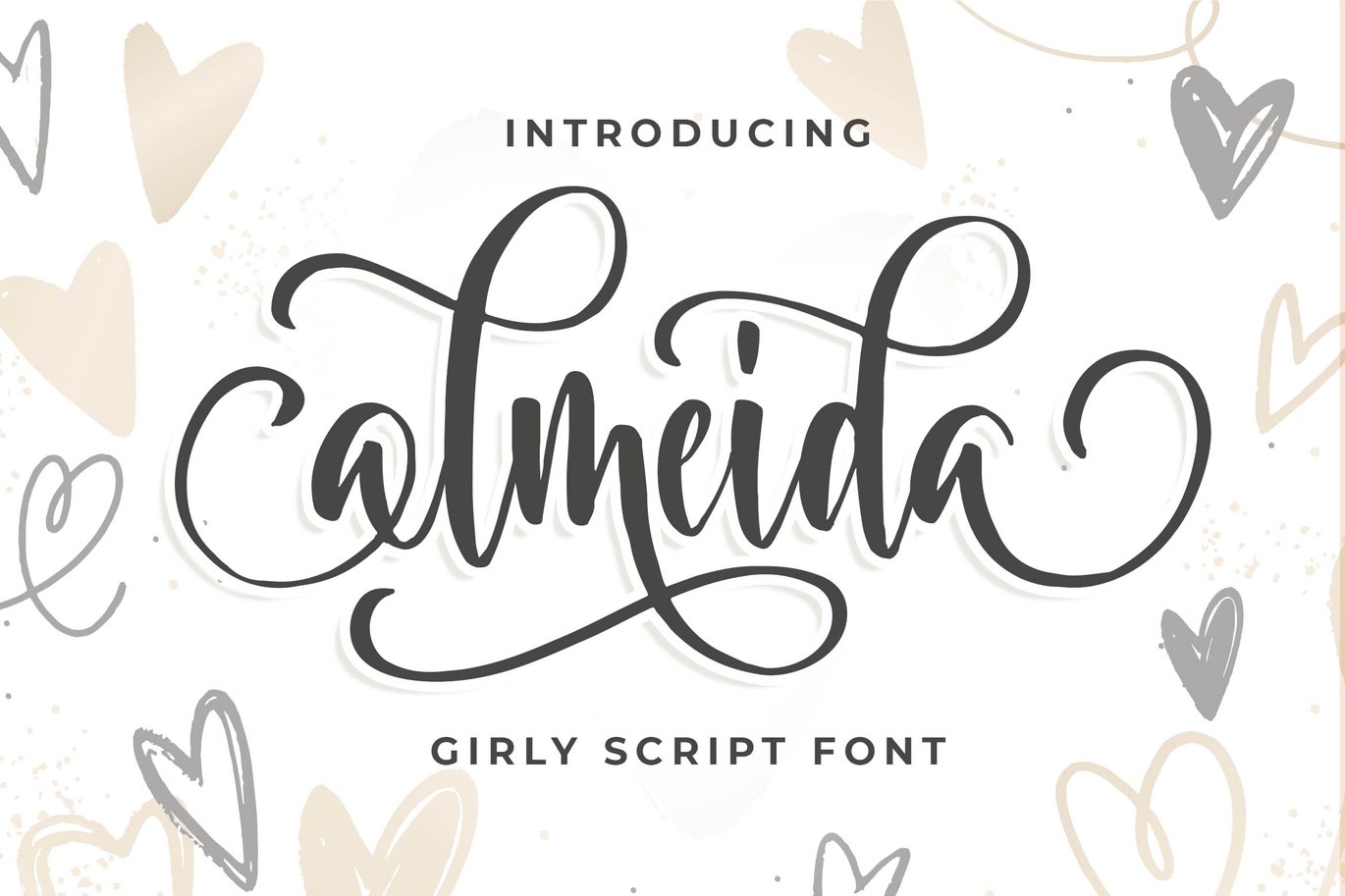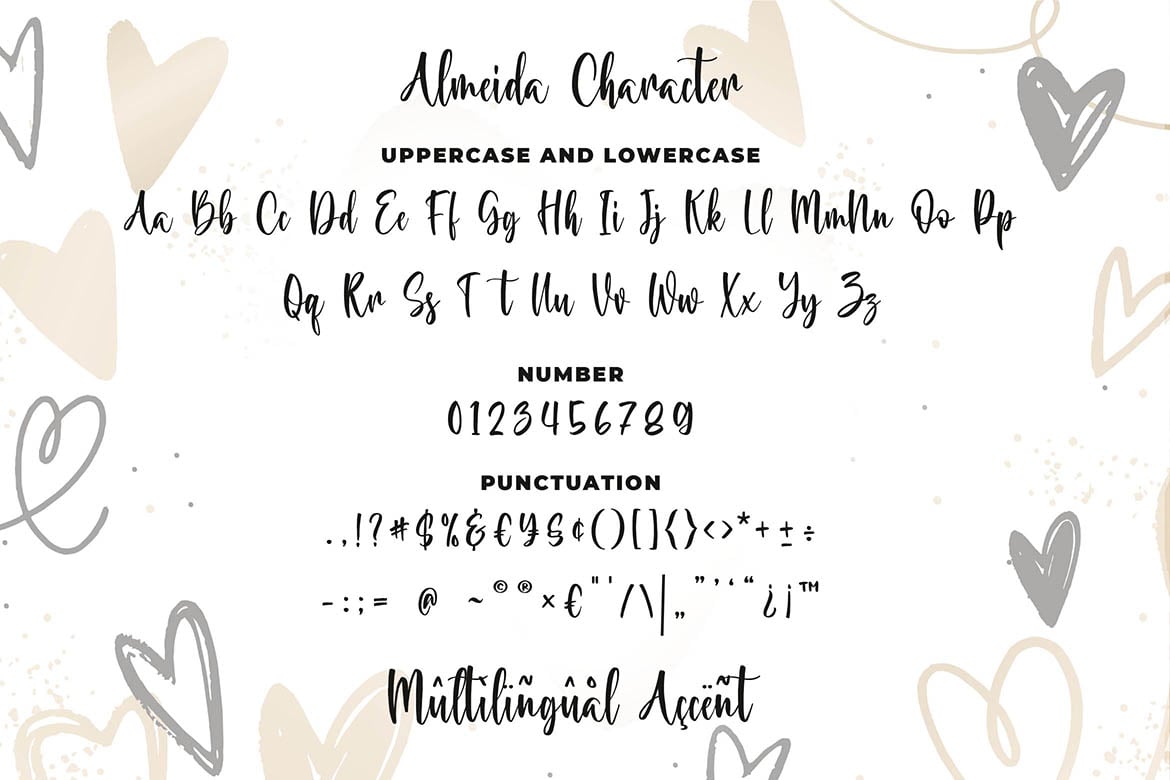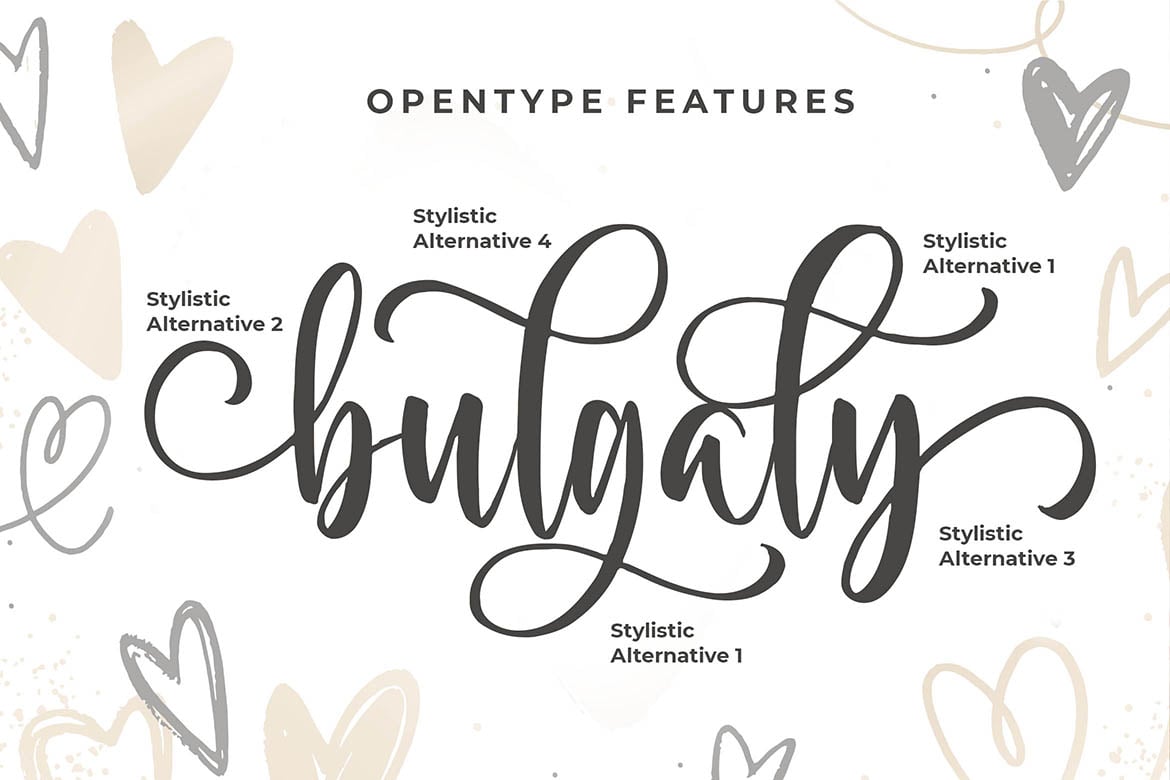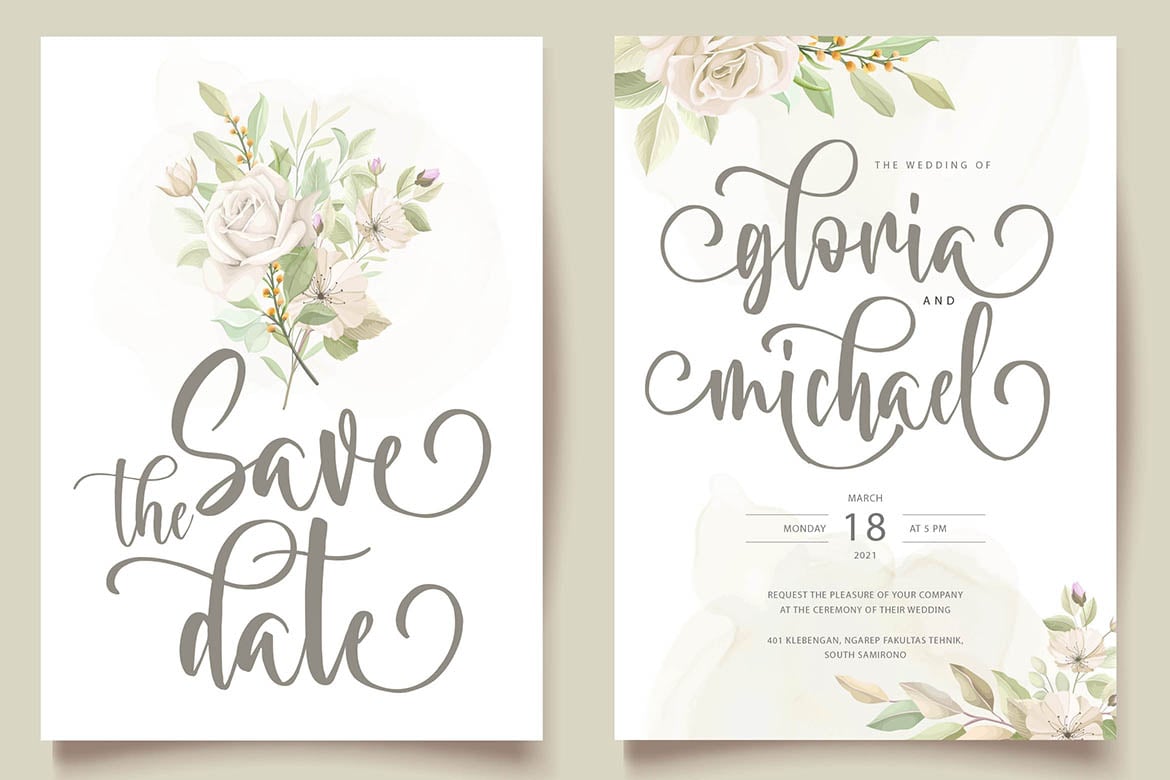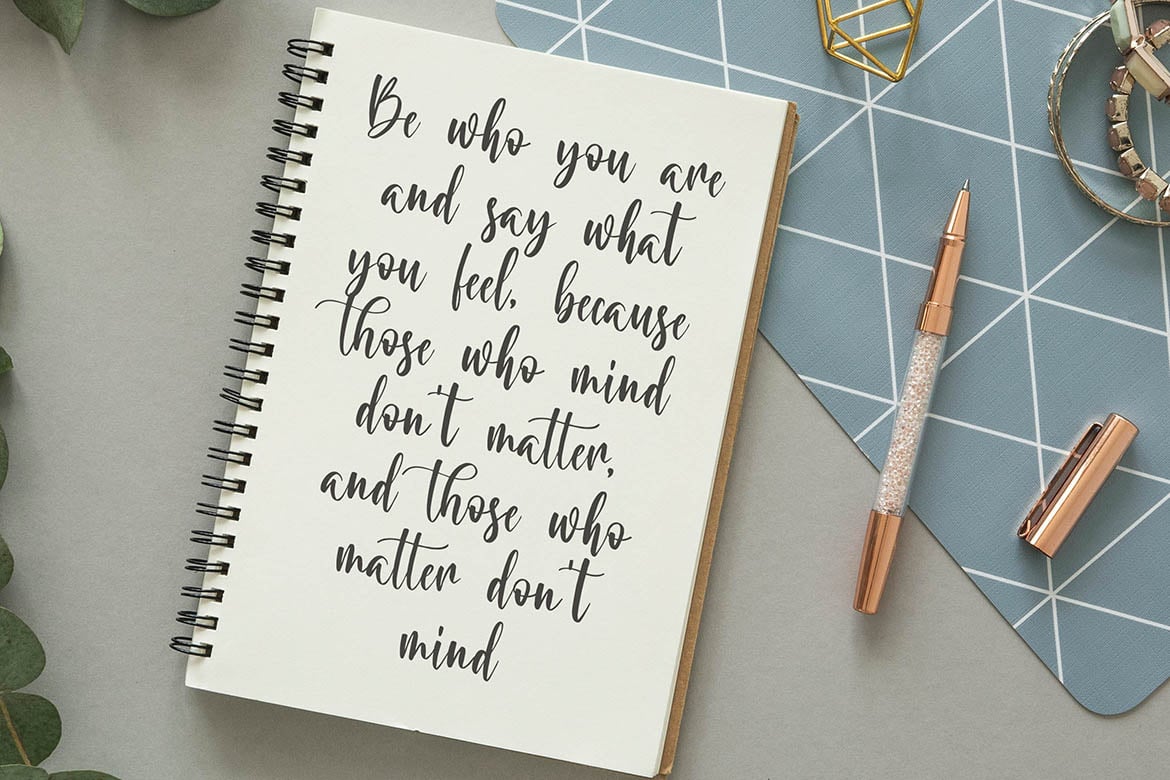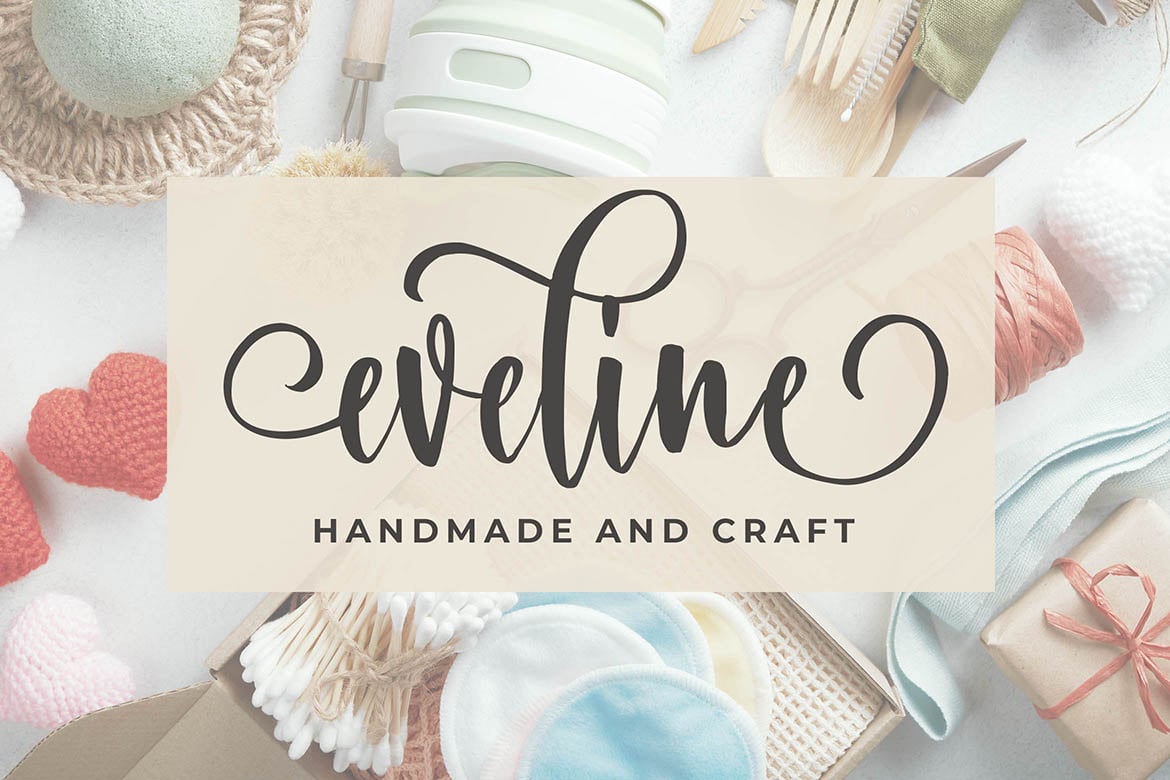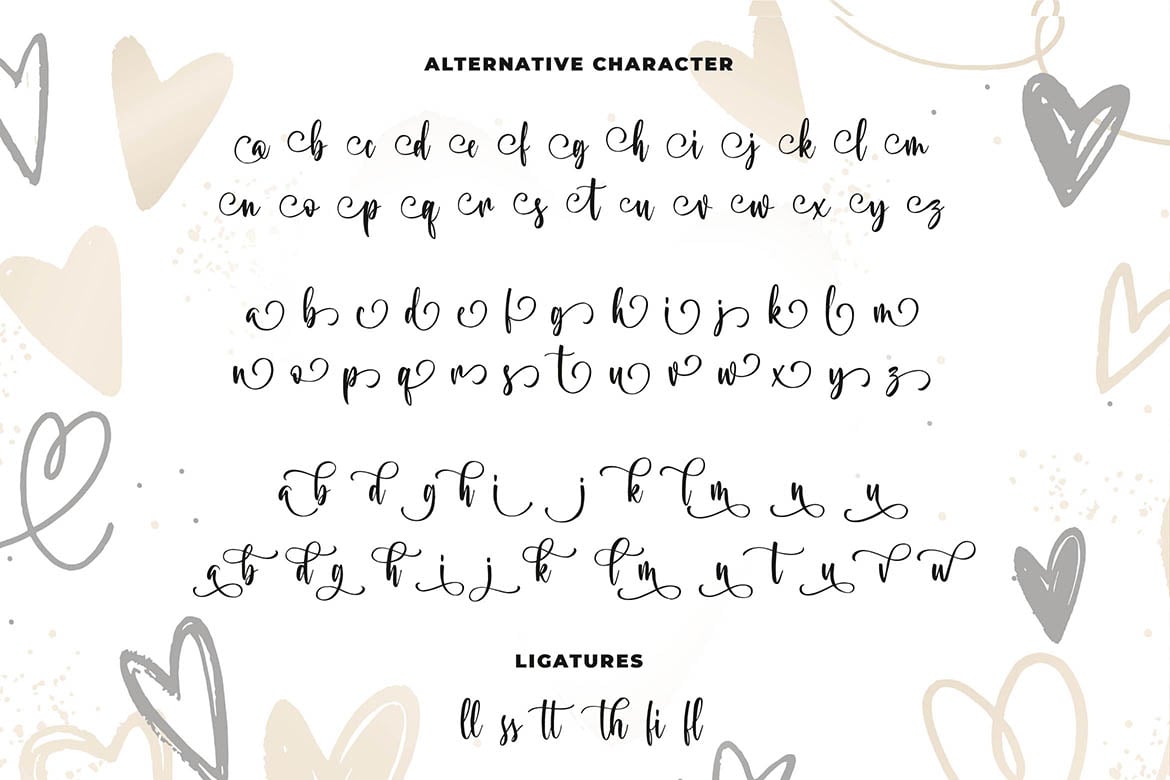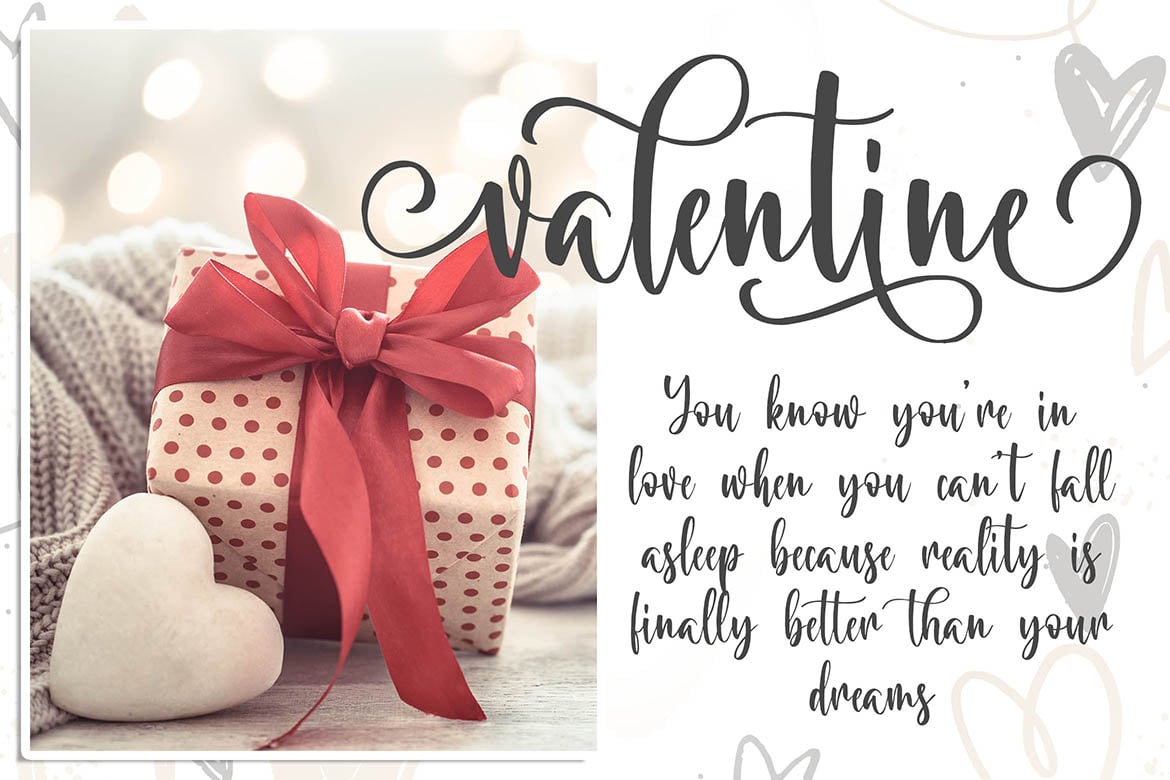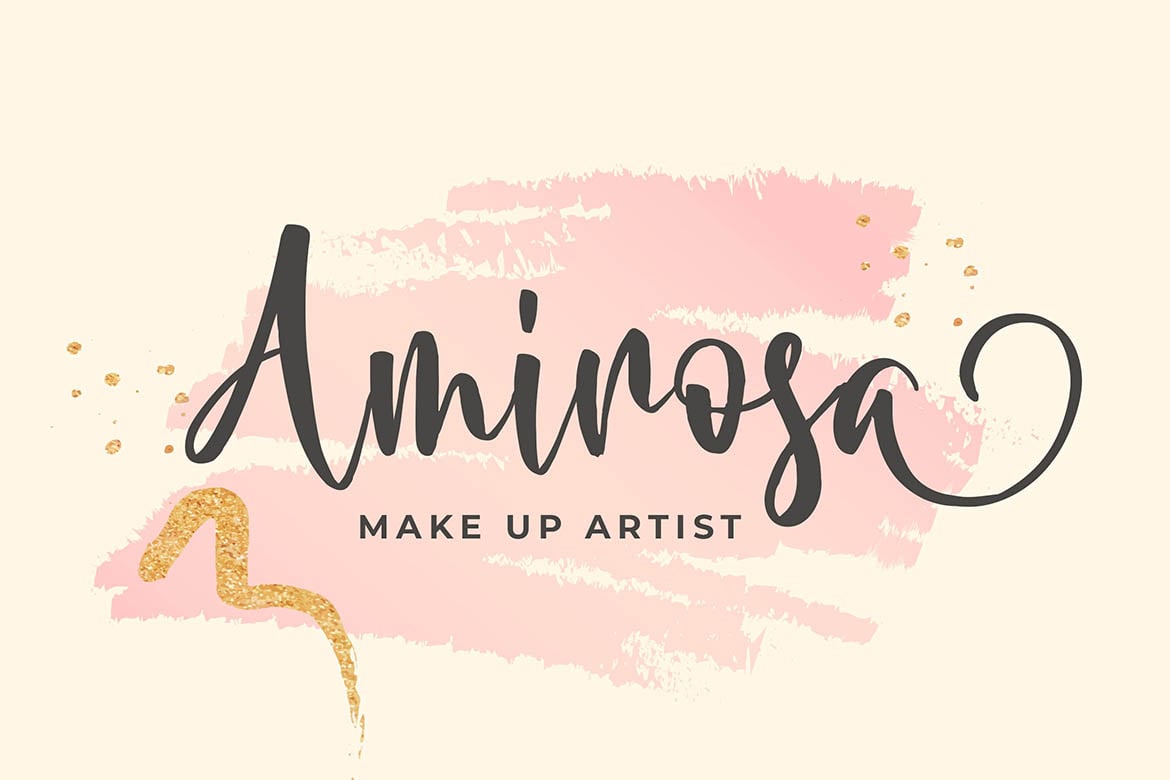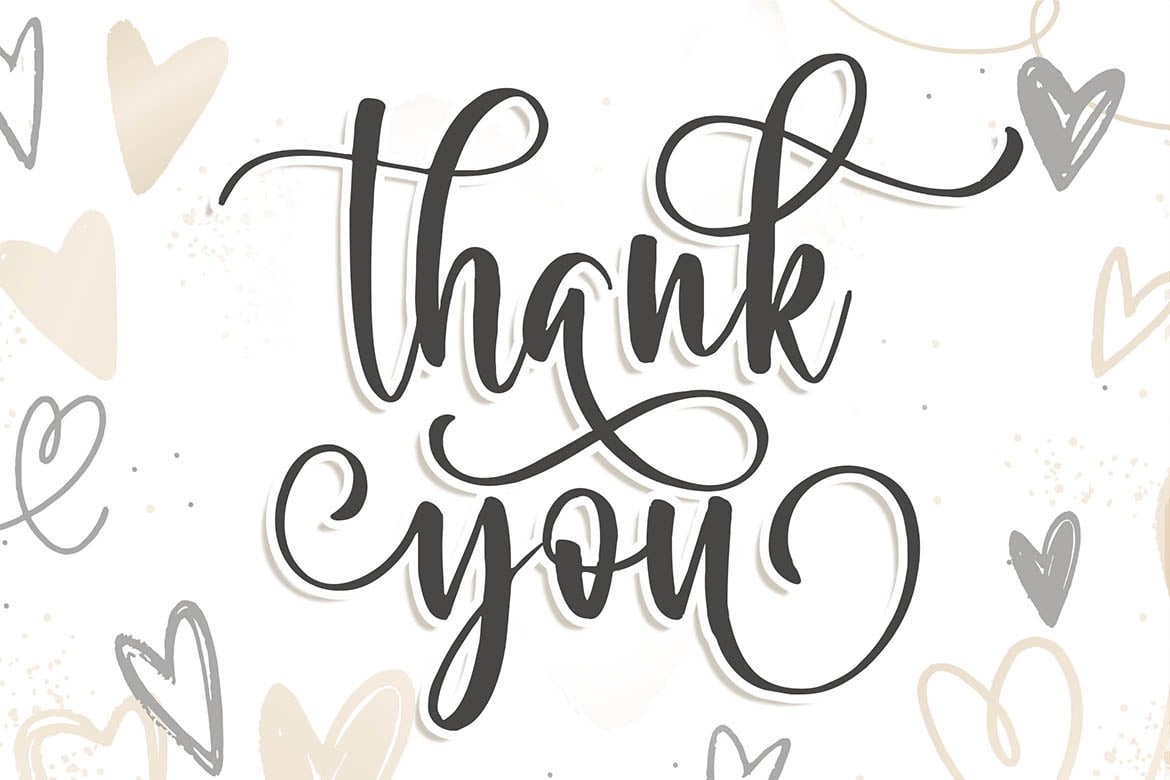
Almeida Girly Script Font
Introducing of our new product the name is Almeida a Girly Script Font. Almeida inspired by modern script style this font is a fun theme very good for display, tshirt design, craft, quote sign, logotype and etc